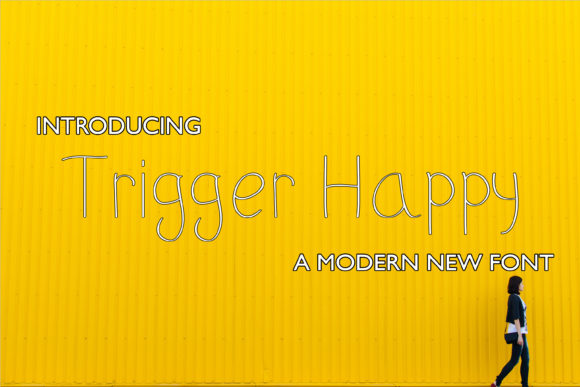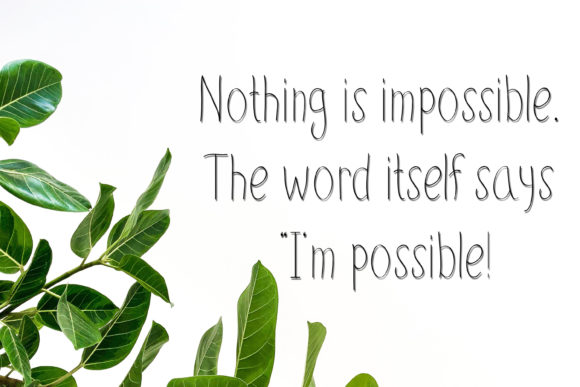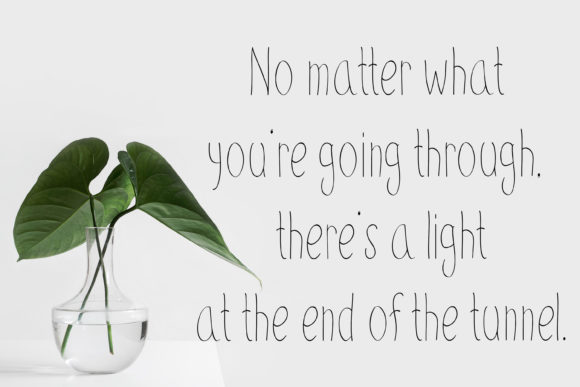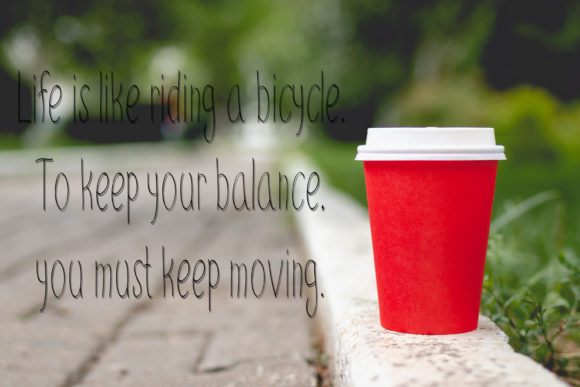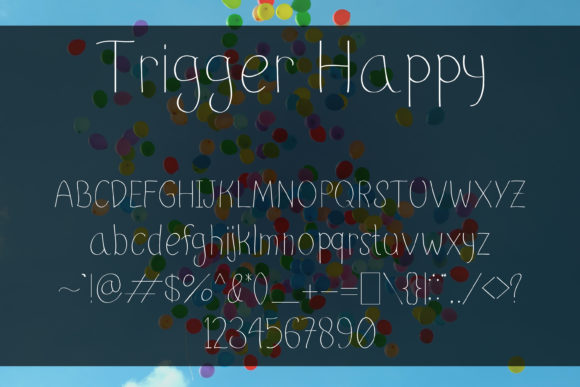
Trigger Happy Font
About Trigger Happy Font
Introducing “Trigger Happy,” a thin lettered and delicate handwritten font that exudes charm and joy. With its dainty and elegant style, this font is perfect for adding a romantic and personalized touch to your designs, whether it’s wedding invitations, greeting cards, or any other project that requires a touch of whimsy.
Trigger Happy brings a sense of lightness and playfulness to your designs. Its thin letterforms and delicate strokes create an air of elegance and sophistication, while still maintaining a joyful and lively feel. The font’s natural and authentic look adds a personal and realistic touch to your creations, making them truly stand out.
The versatility of Trigger Happy allows it to adapt to various design purposes. It is an excellent choice for writing wedding invitations, as its romantic and delicate style perfectly complements the sentiment of love and celebration. The font can also be used for cards, quotes, and any design that requires a touch of sweetness and personality.
The thin lettering of Trigger Happy gives your text a refined and graceful appearance. Each letter is meticulously crafted to maintain a balanced and harmonious look, ensuring that your words flow smoothly and beautifully. The font’s delicate strokes and precise details contribute to its overall charm and uniqueness.
Whether you’re a professional designer or someone with a creative passion, Trigger Happy provides you with a delightful and versatile font to bring your ideas to life. Its thin lettering and delicate style make it an ideal choice for projects that require a romantic and personalized touch.
In summary, Trigger Happy is a thin lettered and delicate handwritten font that adds charm and joy to your designs. Its dainty and joyful style is perfect for writing wedding invitations, cards, and other projects that need a romantic and personalized touch. With Trigger Happy, you can create designs that are both elegant and whimsical, leaving a lasting impression on your audience.